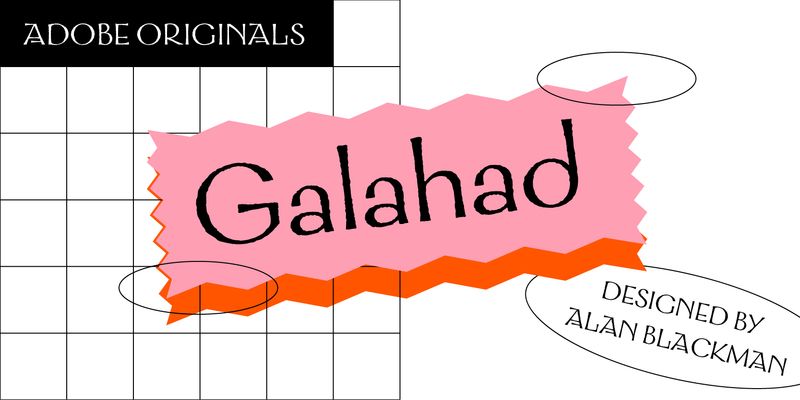
Modeled on hand-drawn letters by well-known San Francisco calligrapher and lettering instructor Alan Blackman, Galahad represents one of his signature styles. The rough edges and eccentric forms of Blackman’s original sans serif lettering have been retained, giving the large display sizes a distinctive, congenial charm. He describes Galahad (named for Sir Galahad, who in Arthurian legend sought and found the Holy Grail) as “a cross between Optima and the flat-pen writing of Friedrich Neugebauer,” the distinguished Austrian calligrapher. While it is a classically proportioned sans serif, Galahad retains its calligraphic origins. The unusual capital A is a particular favorite of Blackman, who thinks of it as his “signature” character, one that adds visual drama to type set in all caps. Although this 1995 addition to the Adobe Originals library is intended primarily for display use, the generous capitals and open, geometric lowercase letters make Galahad clear and readable in casual text settings as small as 14 points.